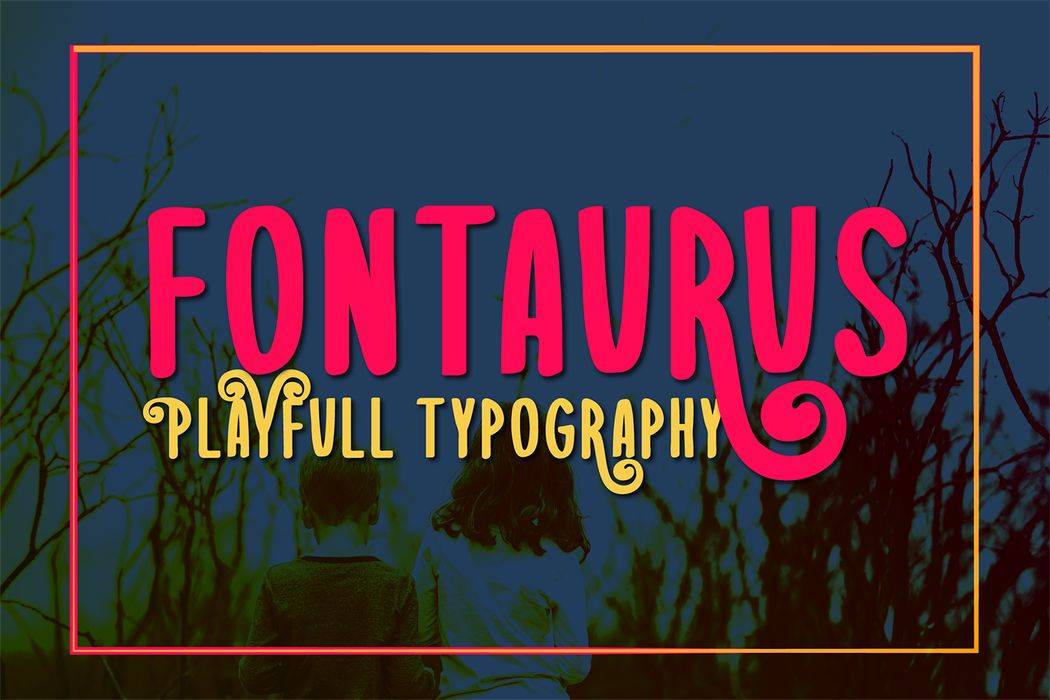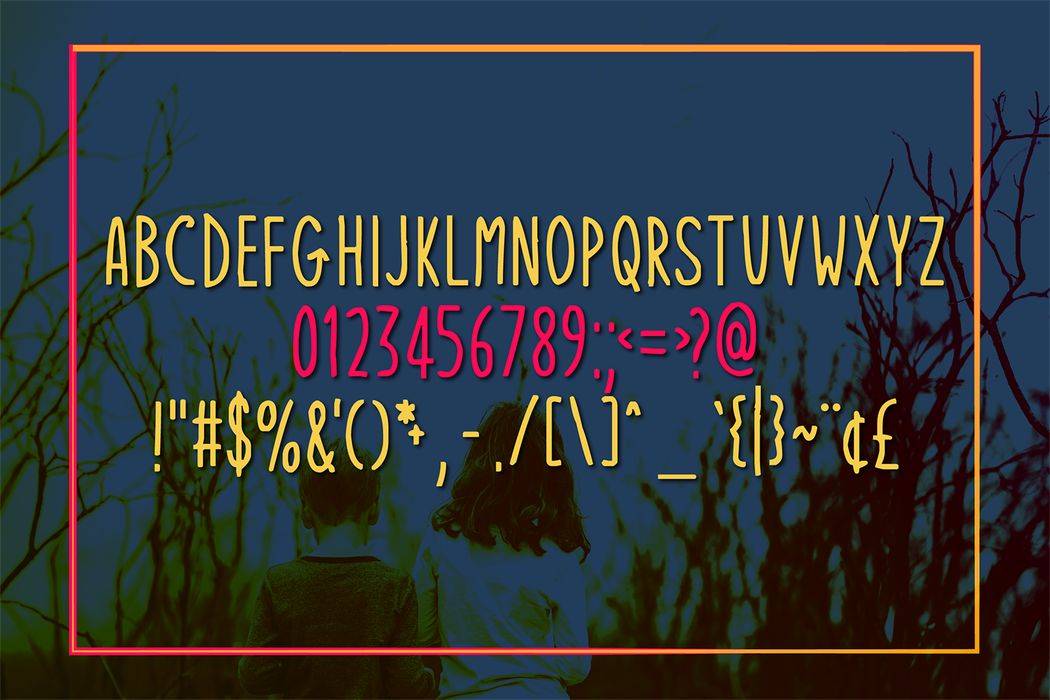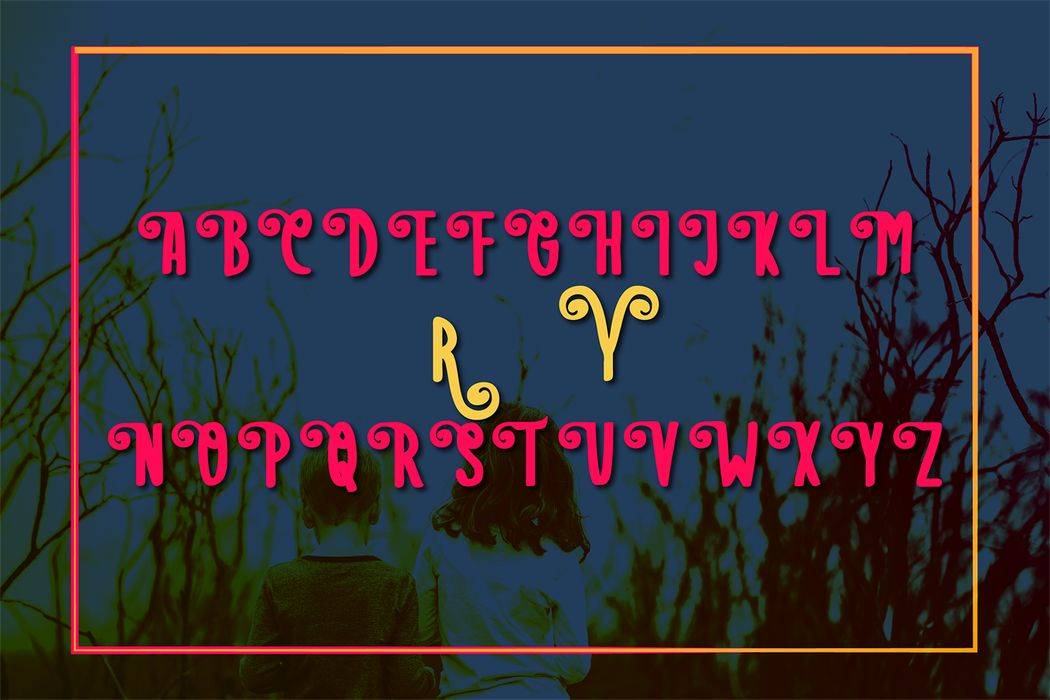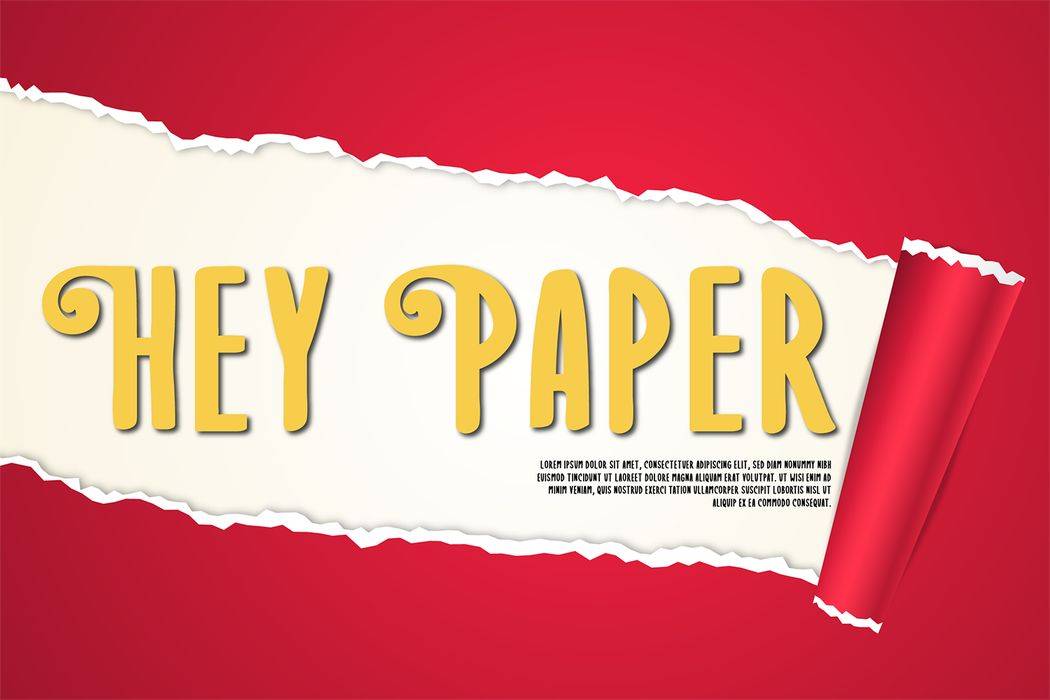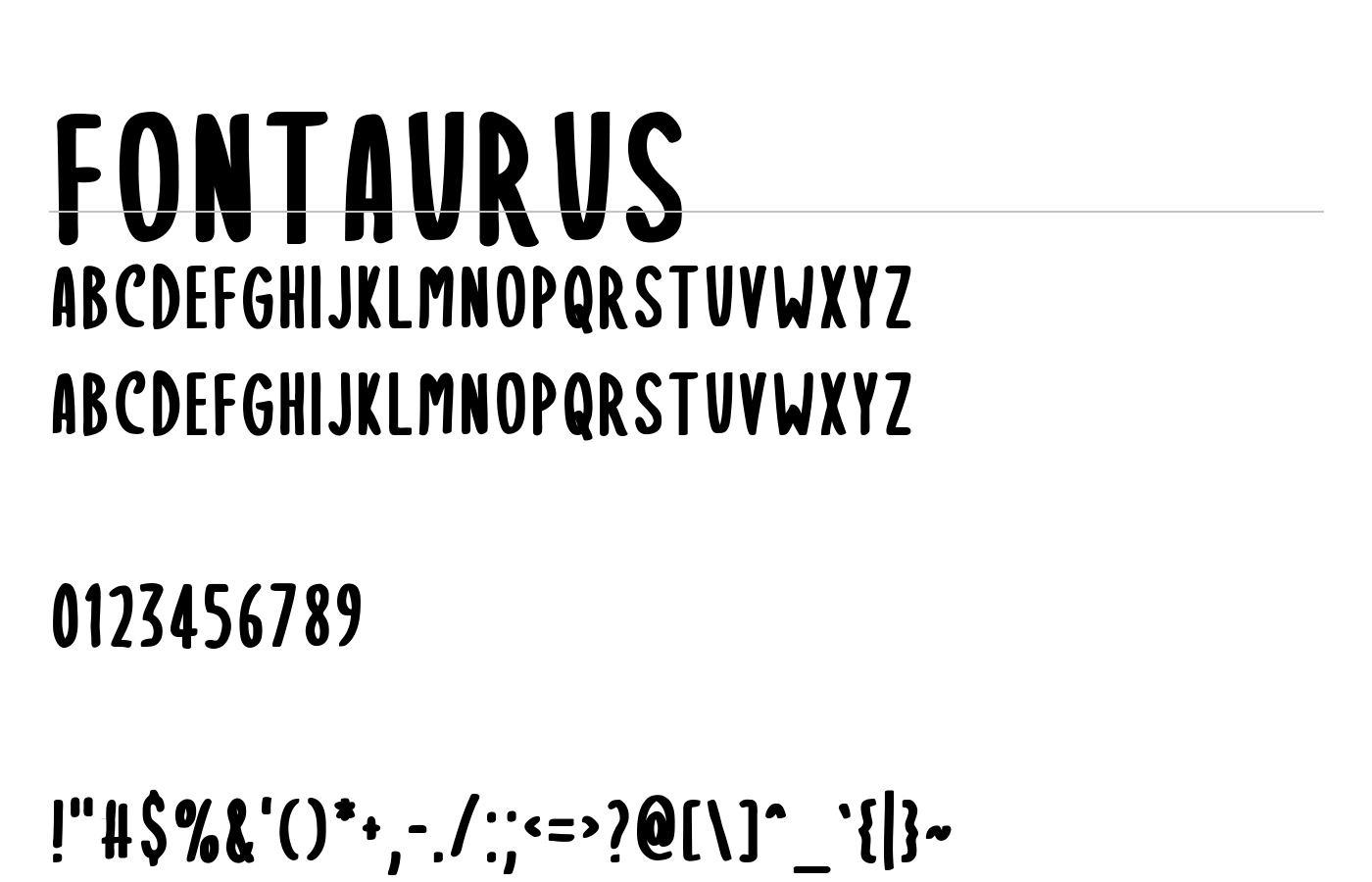
Fontaurus is a tall, condensed sans serif font with a playful and informal personality. Its hand-drawn style with uneven strokes and quirky letter shapes makes it ideal for creative projects, children’s content, or casual branding that seeks a friendly and approachable look. The font works best in headlines, logos, and packaging where a distinctive, fun vibe is desired.
Fontaurus Font
About Fontaurus Font